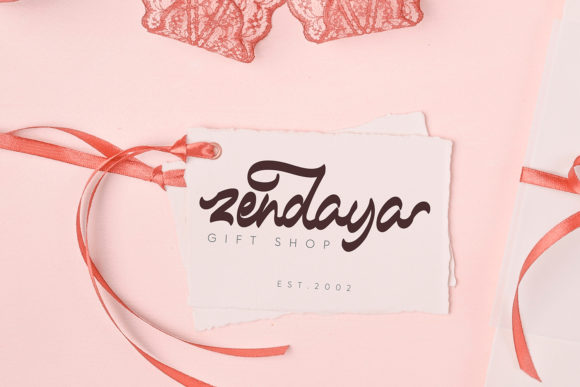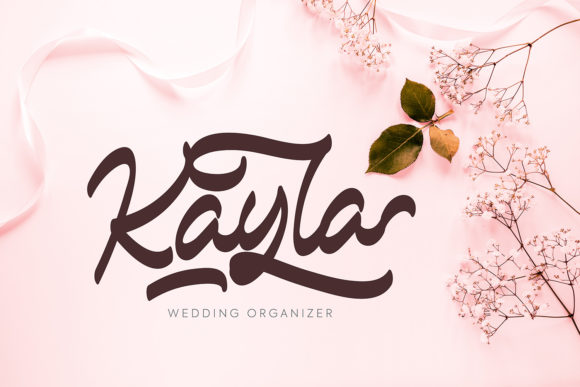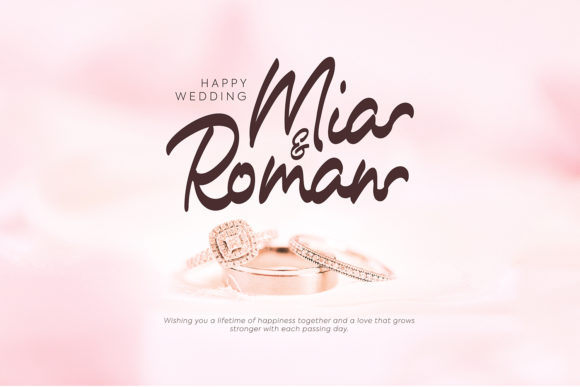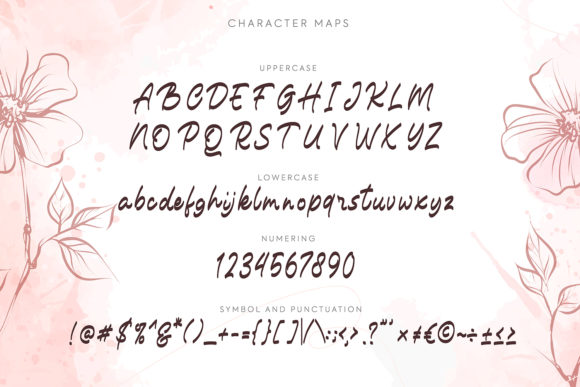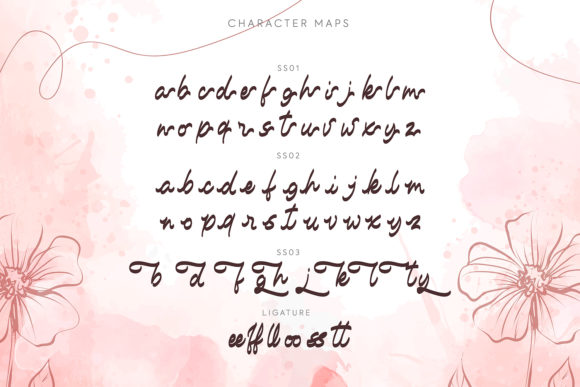
The Birth of a Design Icon: Unveiling the Carlistter Font
Have you ever been stuck in a design rut, searching for that perfect font to elevate your project to the next level? We’ve all been there. The blank page stares back, taunting us with its emptiness. But then, like a breath of fresh air, the perfect font appears, and suddenly, the creative juices start flowing.
Enter the Carlistter Font, a bold, handwritten masterpiece crafted to take your designs to new heights. With its unique charm and versatility, this font is perfect for branding, headings, wedding designs, invitations, signatures, logos, labels, and more. Whether you’re a seasoned designer or just starting out, the Carlistter Font is a valuable addition to your toolkit, guaranteed to bring a touch of elegance and sophistication to your work.
Carlistter Font Key Features
- Font Size: 7 styles, ranging from Light to Extra Bold, providing flexibility for various design applications.
- Unique Characteristic: A unique blend of modern and vintage elements, making it ideal for creating eye-catching and memorable designs.
- Language Support: Supports multiple languages, including Latin, Cyrillic, and Greek alphabets, making it a versatile font for international designs.
- Font Weight: Offers a range of font weights, from Hairline to Extra Bold, allowing designers to create a wide range of visual effects.
Carlistter Font Review
Overall, I’d say the Carlistter Font is a solid addition to any designer’s toolkit, but it’s not without its quirks. Here are my thoughts on what works well and what doesn’t:
- Unique aesthetic: The Carlistter Font has a distinctive, quirky feel that’s perfect for adding some personality to your designs.
- Good for display text: It’s particularly well-suited for headings and titles, where you want to make a statement.
- Works well in digital: The font looks great on screens, making it a good choice for web and mobile designs.
- Readability issues: While it’s great for display text, the font can be difficult to read in smaller sizes or when used for large blocks of body text.
- Limited language support: The font may not be suitable for non-English languages, due to its unique character set.
- Not ideal for body text: As mentioned earlier, it’s best used for display text, as it can be tiring to read in large quantities.
Overall impression
The Carlistter Font is a fun, quirky addition to any designer’s toolkit. While it’s not perfect, it’s a great choice for designers who want to add some personality to their designs. Just be mindful of its limitations and use it sparingly for maximum impact.
Carlistter Font Practical Application Guide
For best results, use Carlistter Font for headings and titles to create a bold and eye-catching design.
For best results, use Carlistter Font for logos, branding, and other high-impact designs.
For best results, use Carlistter Font for headings, titles, and other important text elements.
Tips for Getting the Most Out of Carlistter Font
Use Carlistter Font in bold and italic styles to add emphasis and create visual interest.
Pair Carlistter Font with other sans-serif fonts for a clean and modern look.
Experiment with different font sizes and colors to create a unique and eye-catching design.
Alternatives to Carlistter Font
Alex Brush is a beautiful, handwritten font that exudes warmth and personality. It’s ideal for designs that need a touch of whimsy and playfulness. Use it for titles, headings, and body text to add a sense of approachability and friendliness. Compared to Carlistter Font, Alex Brush has a more casual and relaxed feel, making it suitable for creative, artistic, and lifestyle brands.
What font sizes and styles are available in Carlistter?
The Carlistter font family includes a range of weights and styles, including Thin, Light, Regular, Medium, Bold, and Black. Each style is available in a range of font sizes, from 8pt to 72pt, making it suitable for use in various design applications, including typography, logos, and graphics.